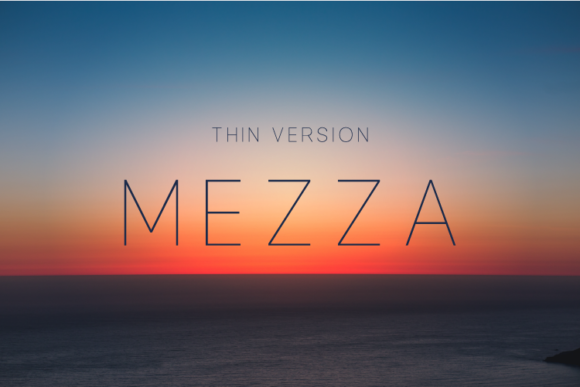
Journey into the realm of typography with Mezza Thin Font, a captivating sans serif creation from the esteemed Huntype foundry. Experience the allure of a font that blends romantic charm, timeless elegance, and minimalist aesthetics, effortlessly transforming your designs into captivating masterpieces.
Mezza Thin Font is an all-caps symphony, a visual masterpiece that commands attention and ignites emotions. Its delicate strokes and graceful curves are reminiscent of a handwritten letter, infusing your designs with a touch of intimacy and warmth. Whether you're crafting magazine layouts, designing alluring invitations, or creating captivating headers, Mezza Thin Font is your perfect companion.
With its minimalist appeal, Mezza Thin Font effortlessly elevates your designs, allowing them to transcend the ordinary and embrace the extraordinary. Its clean lines and understated beauty create a canvas for your creativity, inviting you to paint your ideas with style and grace. Unleash your imagination and watch as Mezza Thin Font transforms your words into art, captivating your audience with its timeless allure.
Mezza Thin Font is more than just a font; it's an experience. Immerse yourself in its beauty, feel the emotions it evokes, and let your creativity soar. Embrace the power of Mezza Thin Font and witness the transformation of your designs into works of art, leaving an indelible mark on the hearts and minds of your audience.